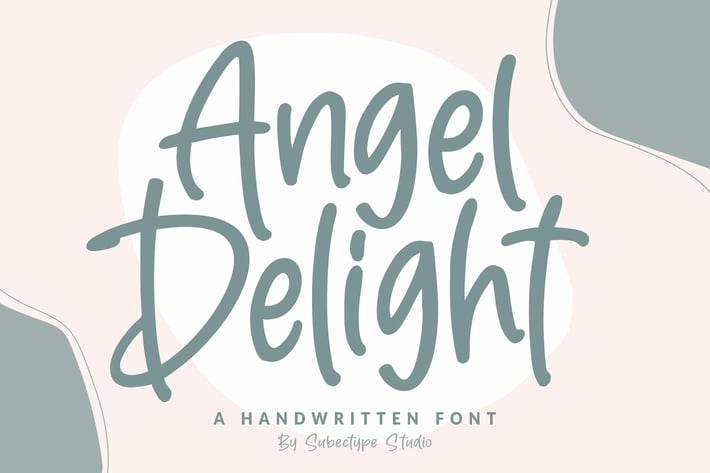
Angel Delight Handwritten Font
Angel Delight is a sweet and friendly handwritten font. Its natural and unique style makes it incredibly
fitting to a large pool of designs. The only limit is your imagination!